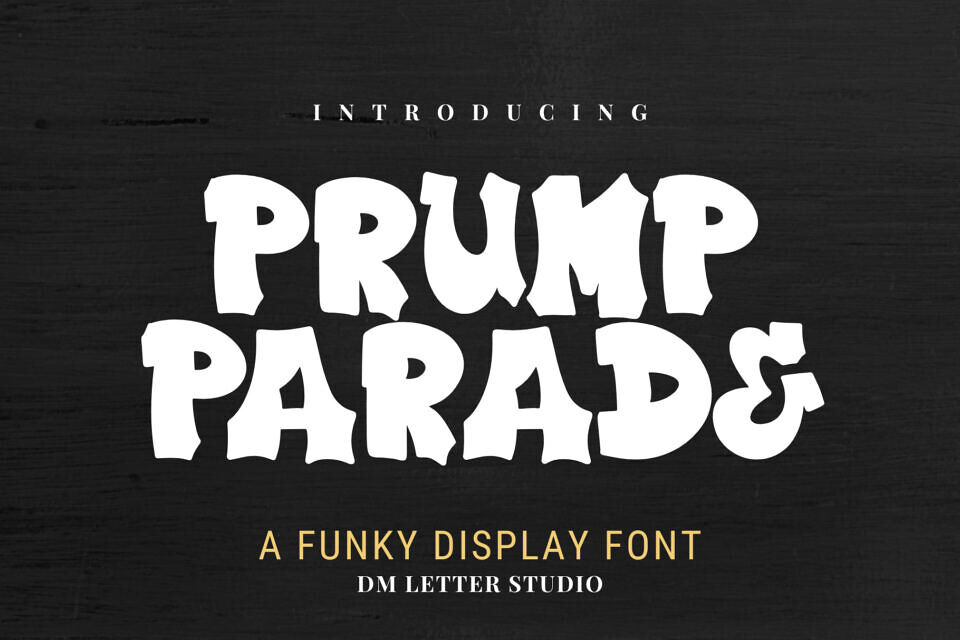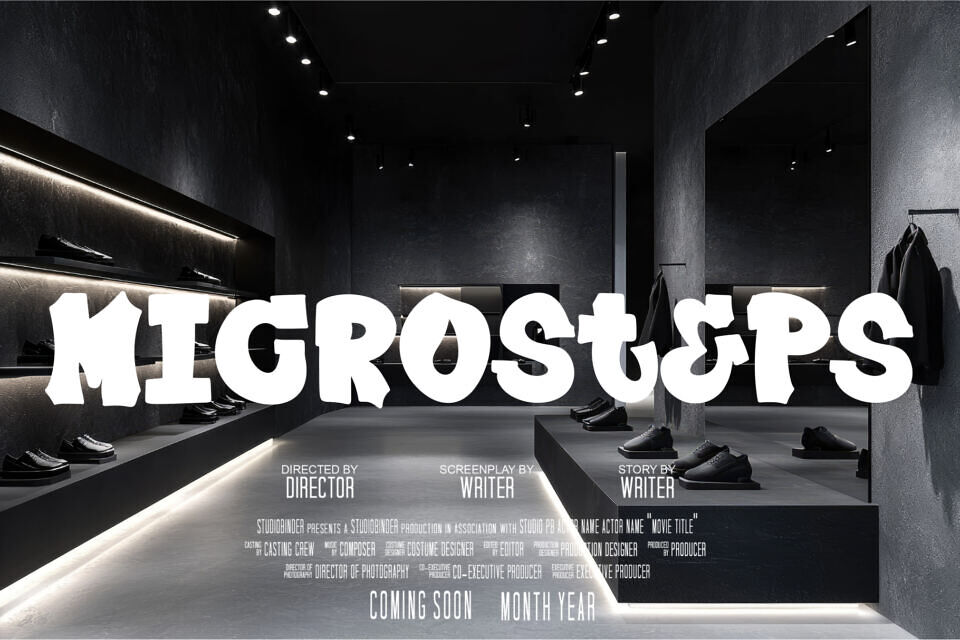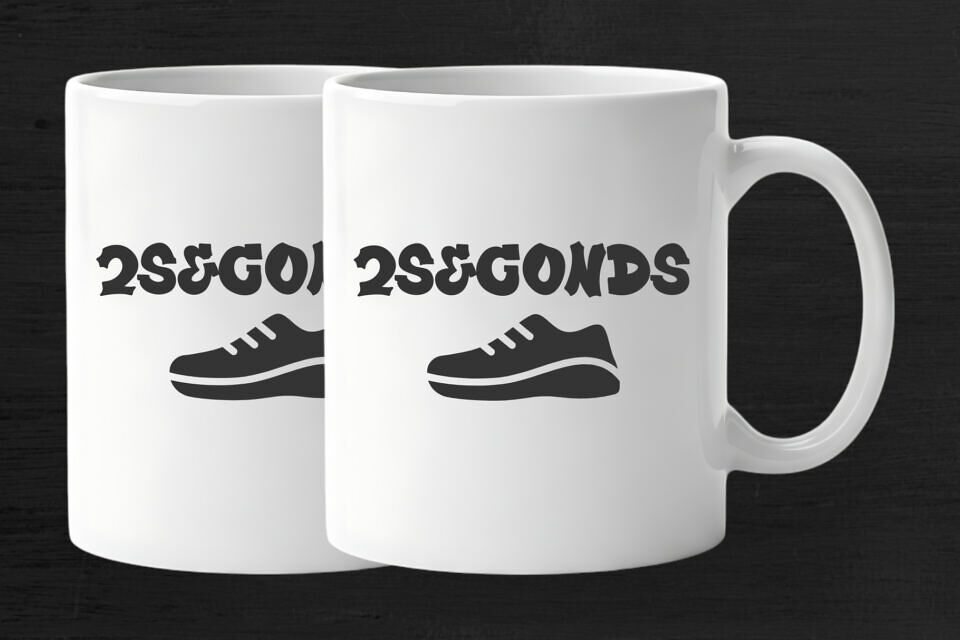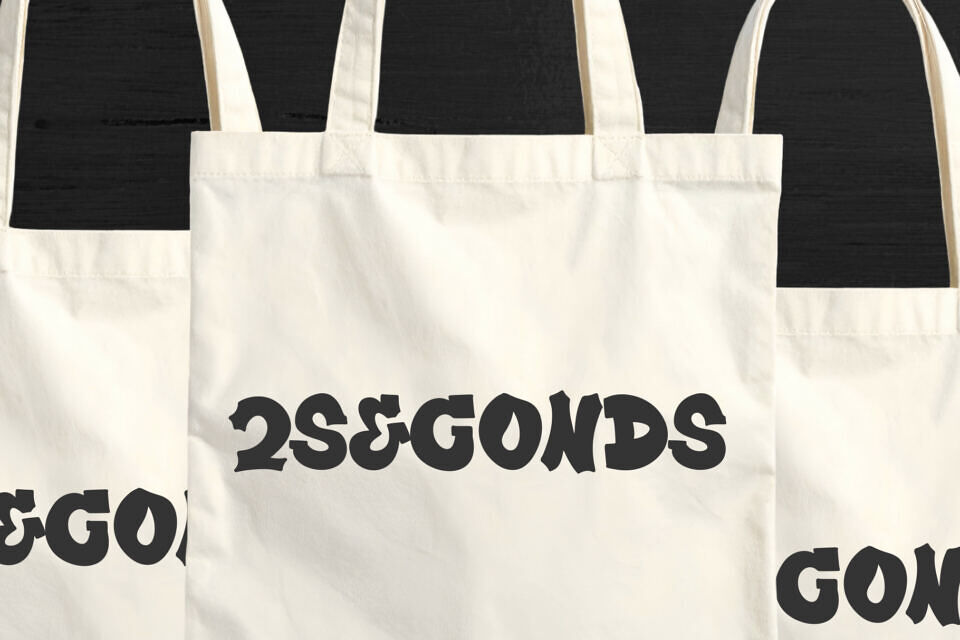
Plump Parade Font
Plump Parade Font marches in with big, bouncy letters that grab attention fast. Rounded forms feel friendly and celebratory, while wide counters keep every word clear on posters, shirts, stickers, banners, and social posts.
Use it for parade signage, festival merch, school spirit days, birthday decor, and brand launches. Because spacing is even and curves are smooth, thumbnails pop on marketplaces and large prints stay crisp.